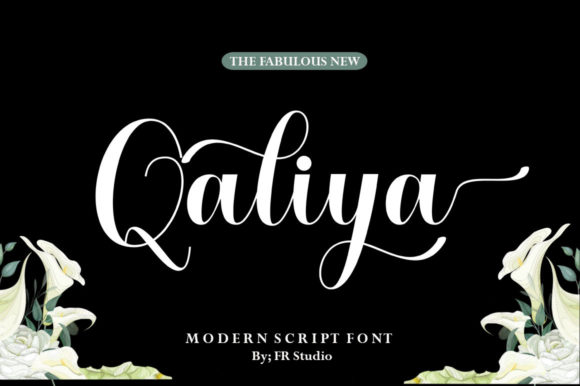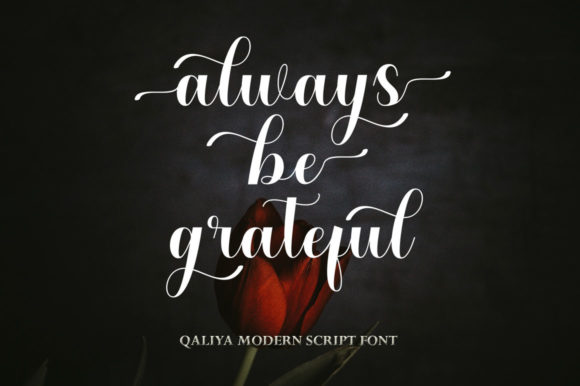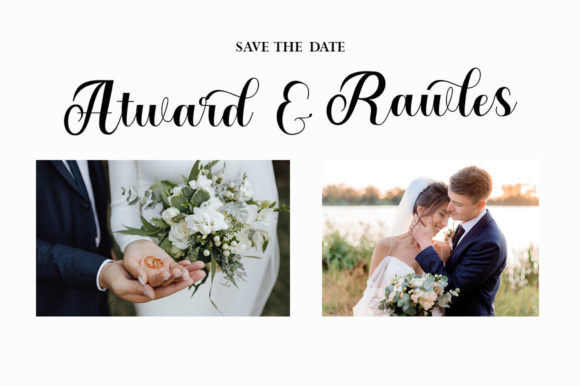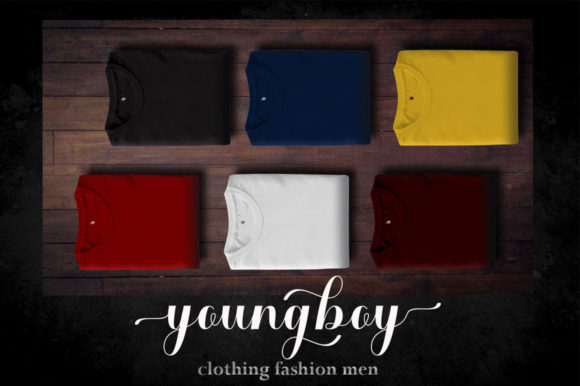
About Qaliya Font
Qaliya is a beautiful and refined script font. It has a classy, elegant and modern look that can be used for logos, branding, invitations, stationery, wedding designs, social media posts, and much more! is a beautiful and refined script font. This font is PUA encoded which means you can access all of the glyphs and swashes with ease!